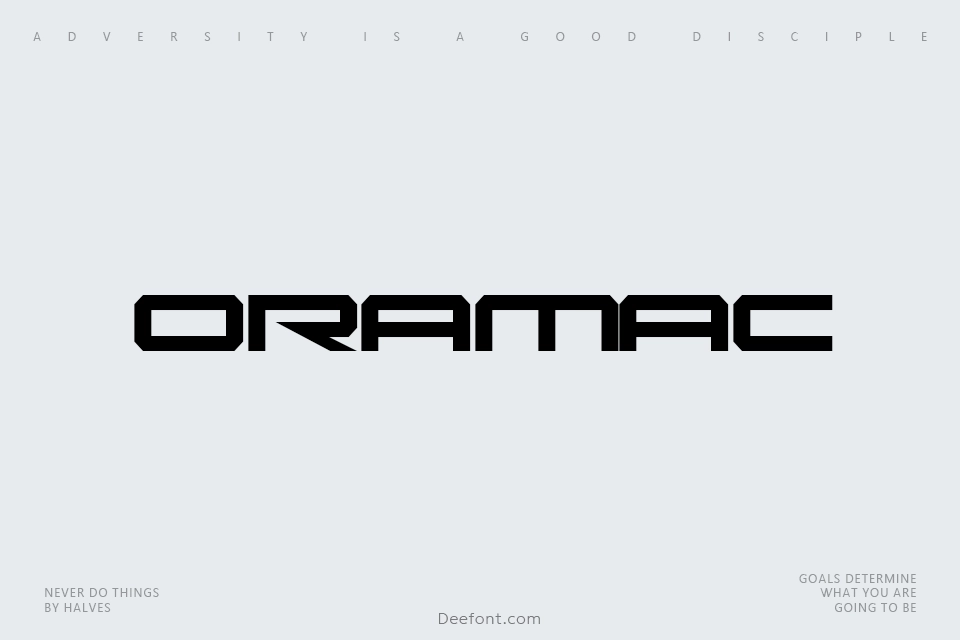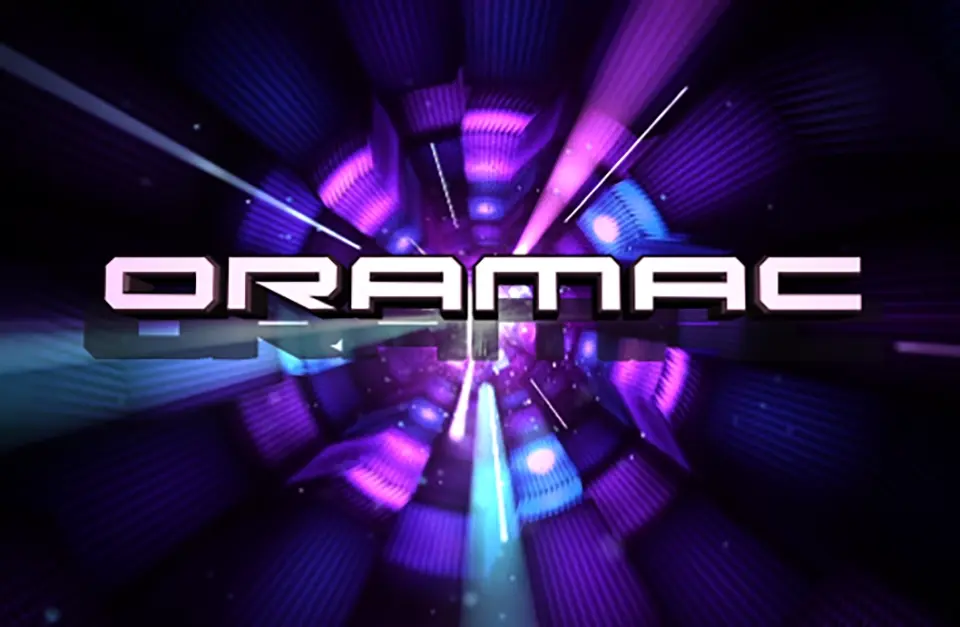
Oramac Font
Oramac is a futuristic display typeface crafted by Daniel Zadorozny featuring bold, angular letterforms and a sleek technological aesthetic. With 29 style variations including condensed, expanded, italic, laser, 3D, shadow, and chrome effects, this versatile font commands attention across headlines, branding, and contemporary design applications. Perfect for editorial layouts, packaging, advertising, and digital interfaces seeking cutting-edge visual impact.